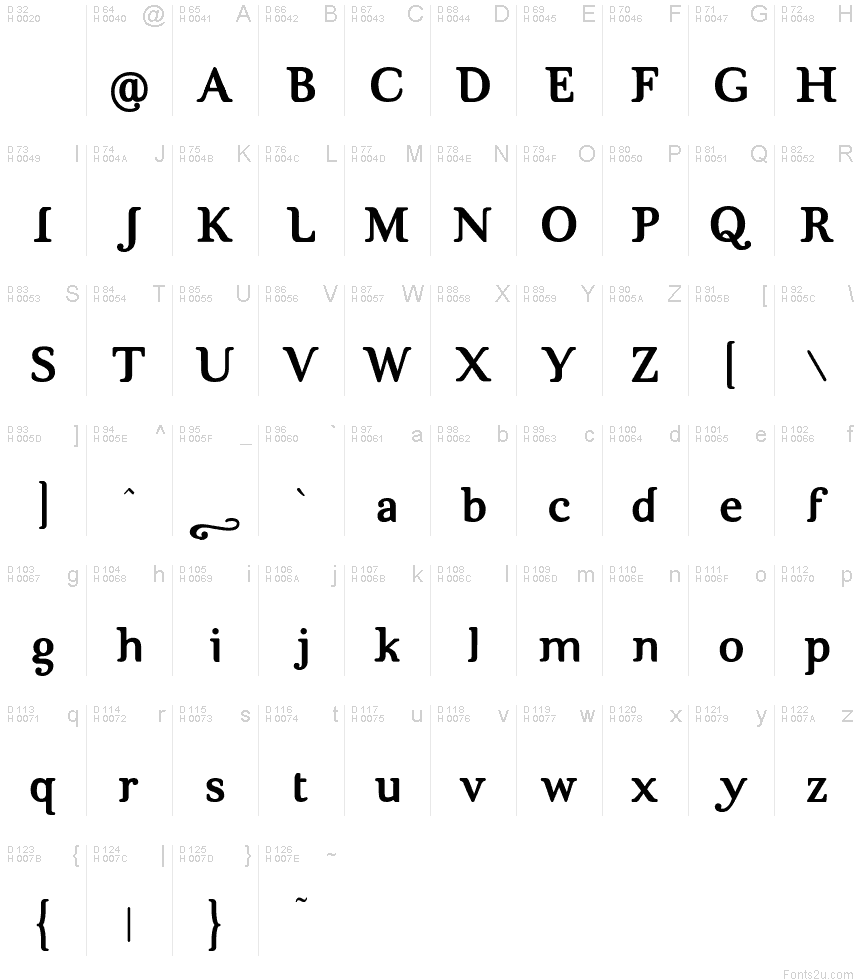
Brig Maven by The Original 19 is a free playful display serif with oversized, softly rounded forms and an uneven, hand-cut silhouette. Broad strokes meet narrow joins, and the compact spacing makes the letters feel lively and slightly unruly. Round dots and hooked curves soften the blocky mass.
A snack brand or family venue could use it for packaging, shop signage, and posters that favor humor over polish. Its chunky shapes also suit children's publishing and comedy events, where loose construction supports an informal, offbeat theme. Beside mascots, the bulbous curves can become part of the same cartoon world.